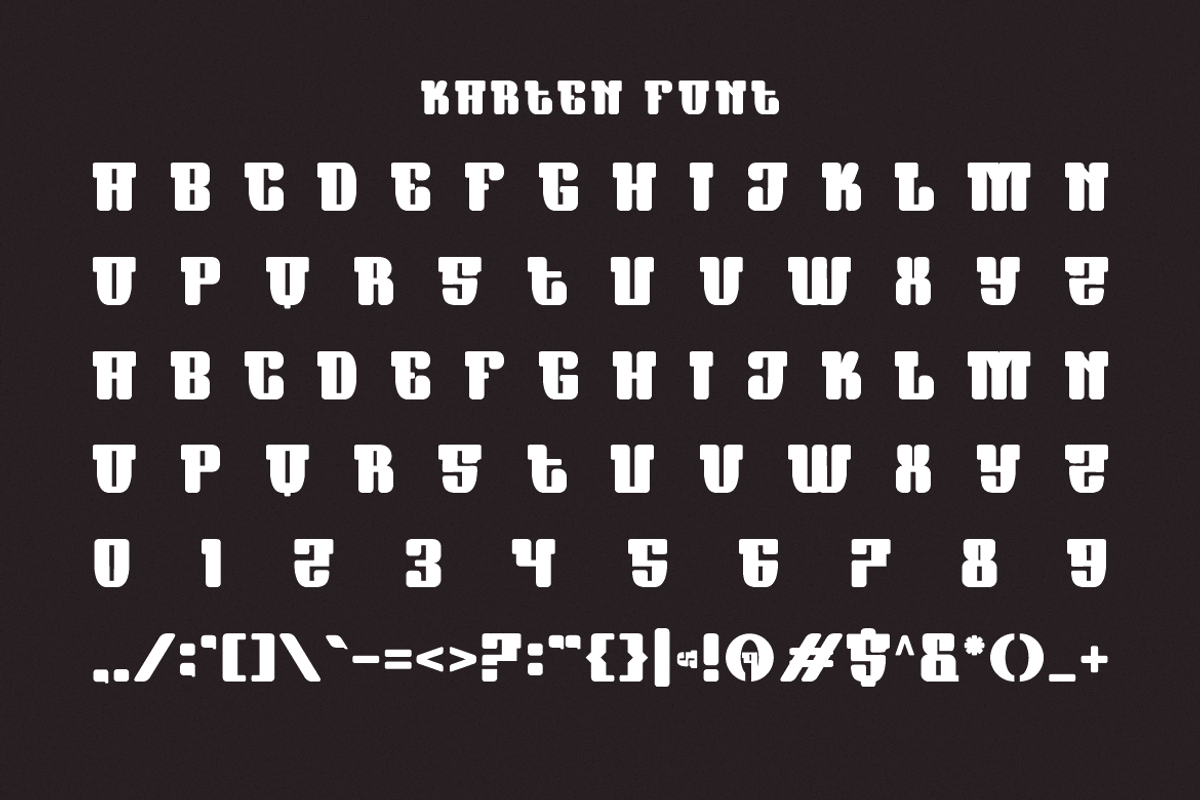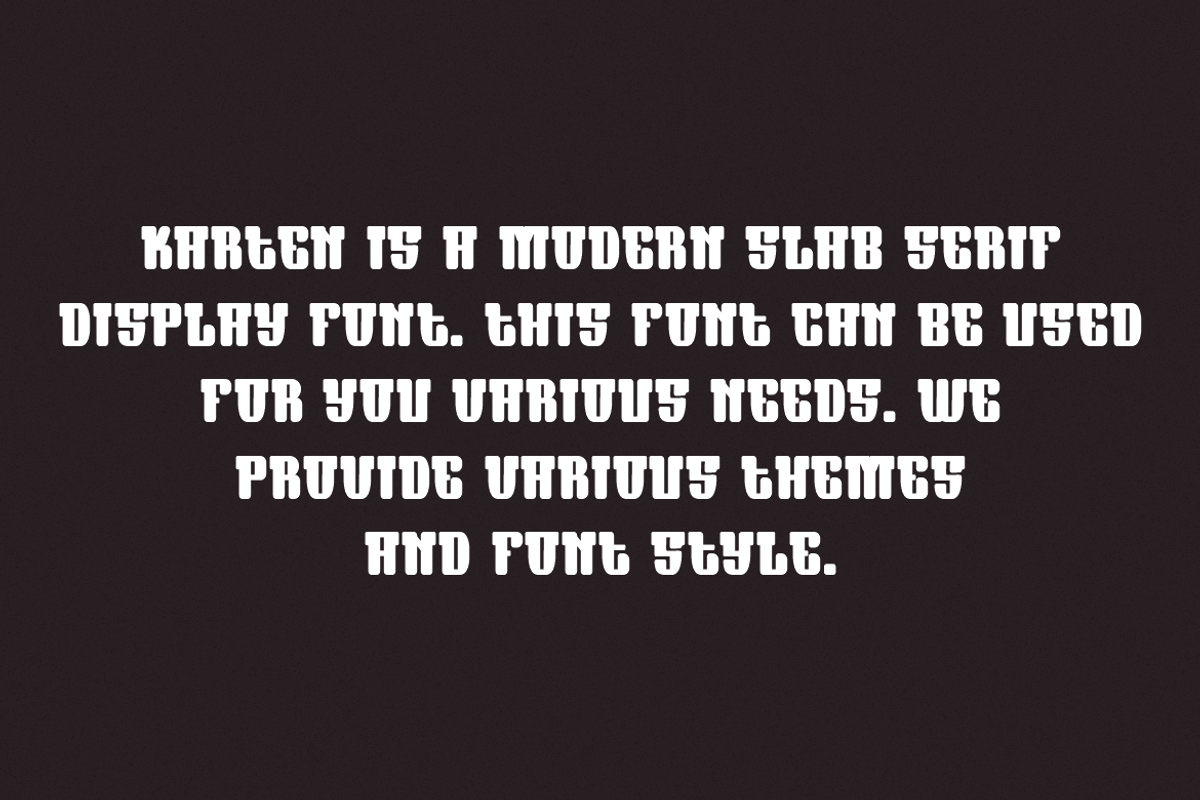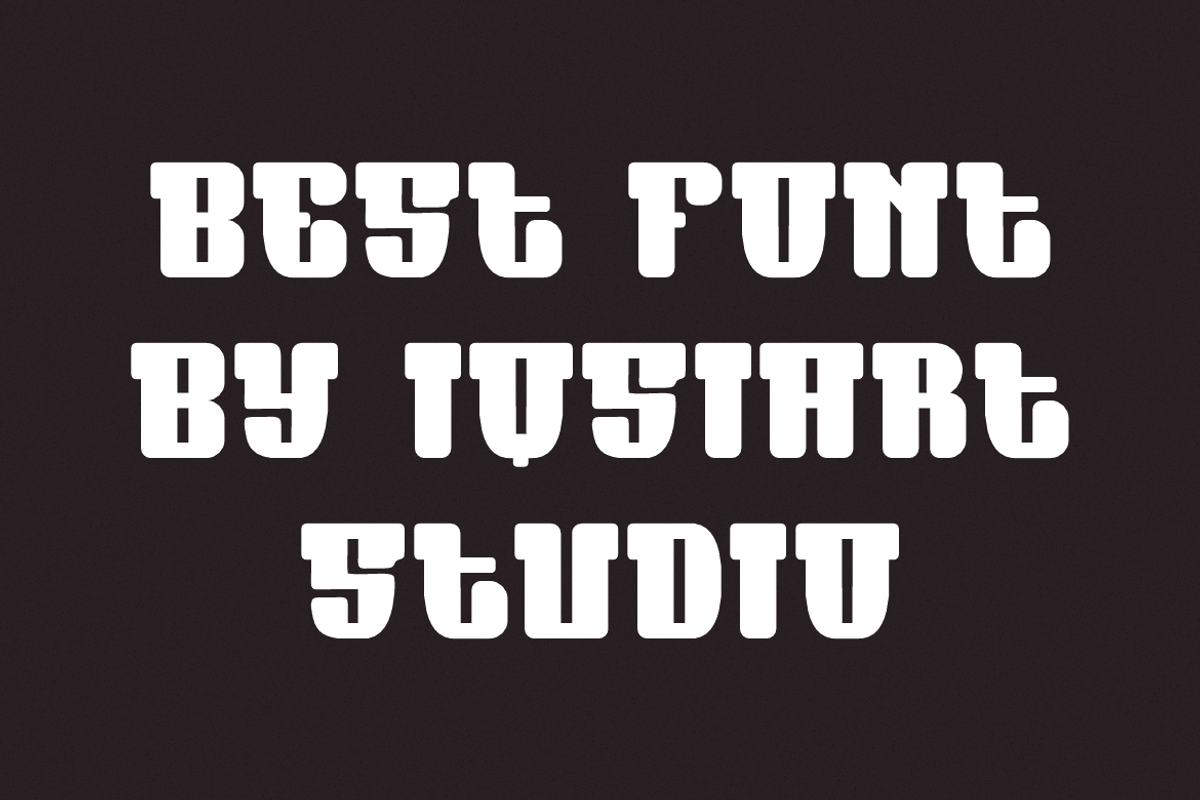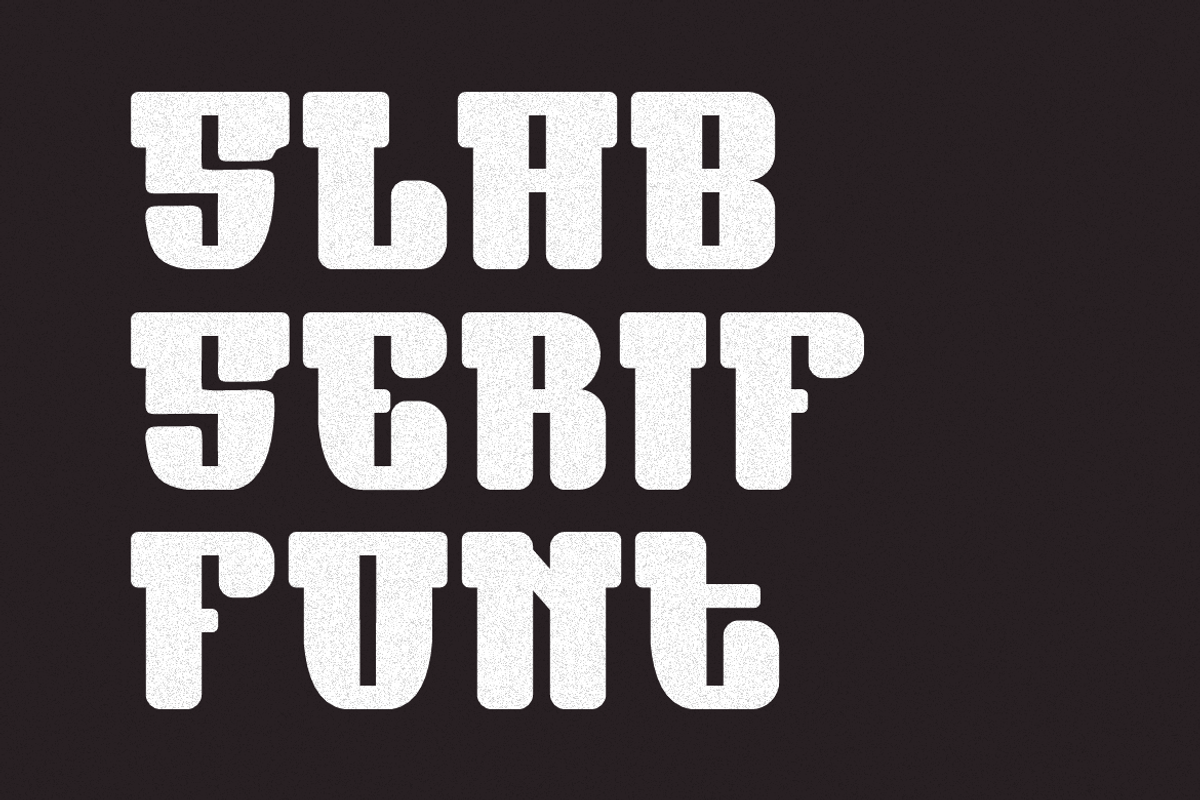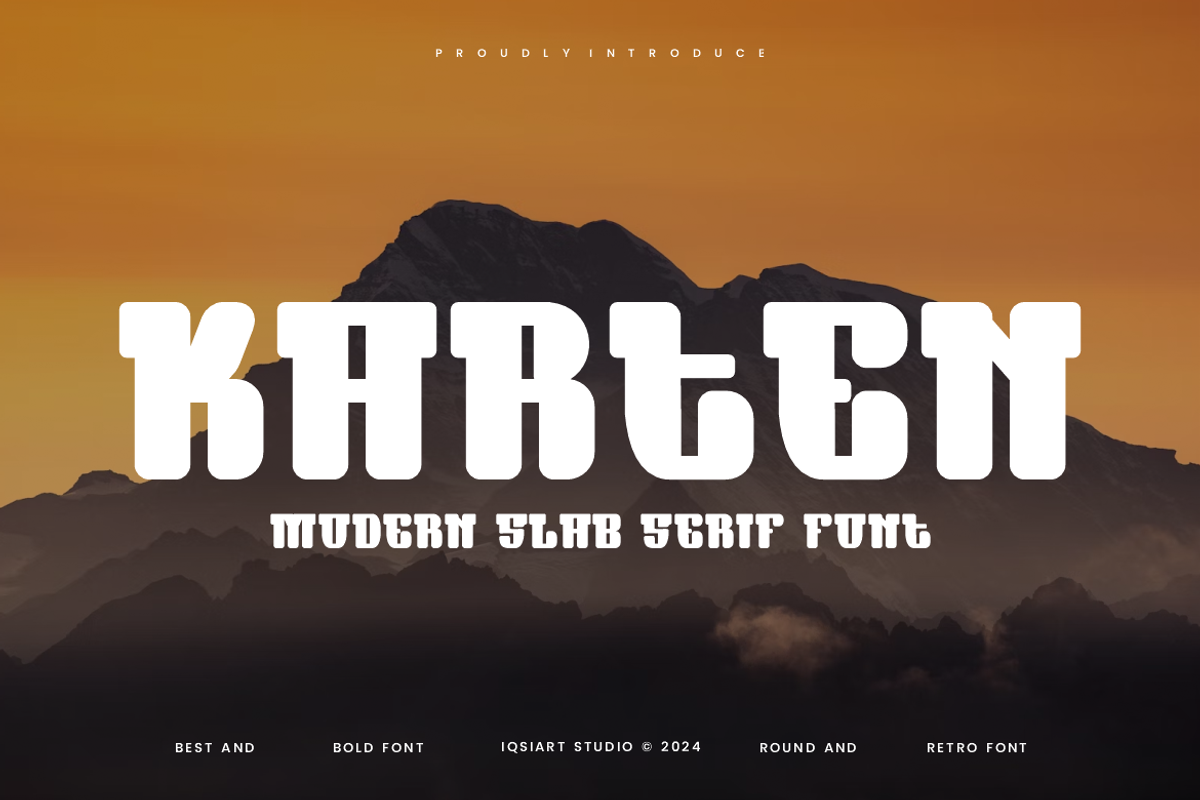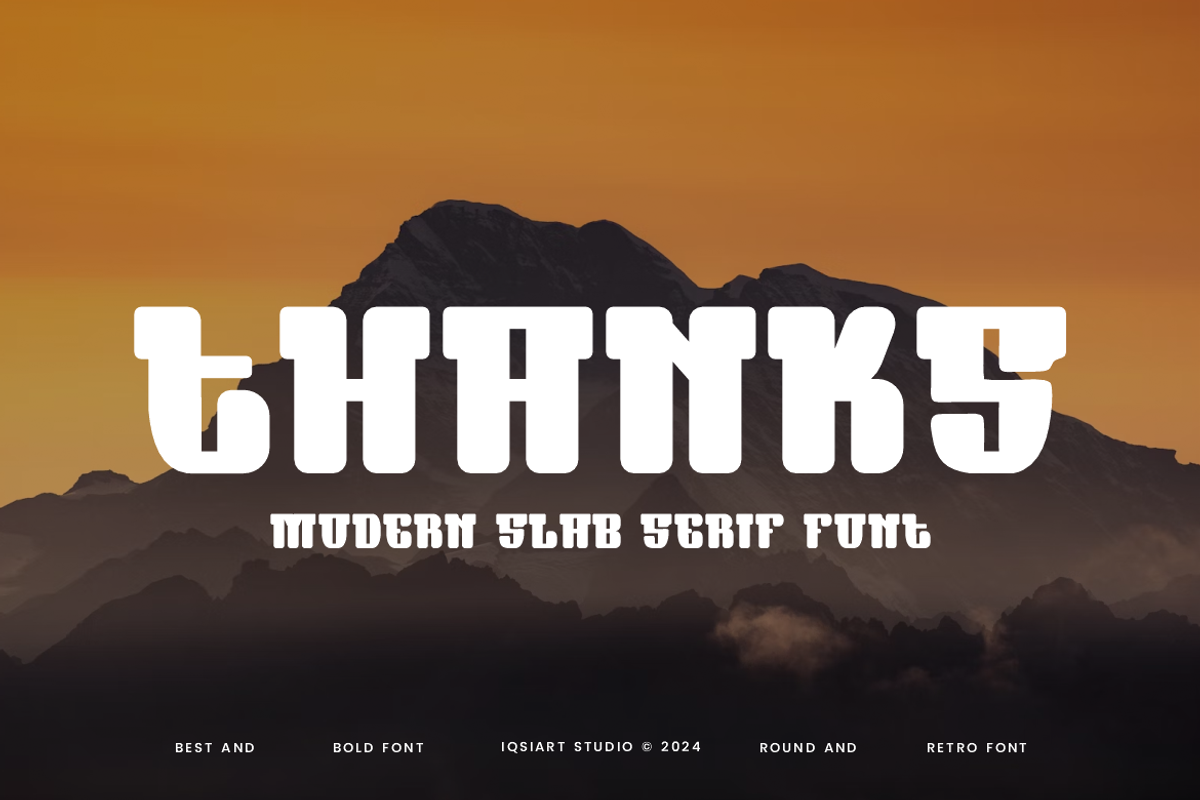
Karten - Slab Serif Font
Karten Font is a best and authentic display font. This font can be used for your various needs. We provide various themes and font styles. visit our profile to get a wide variety of themes and different font styles you need.